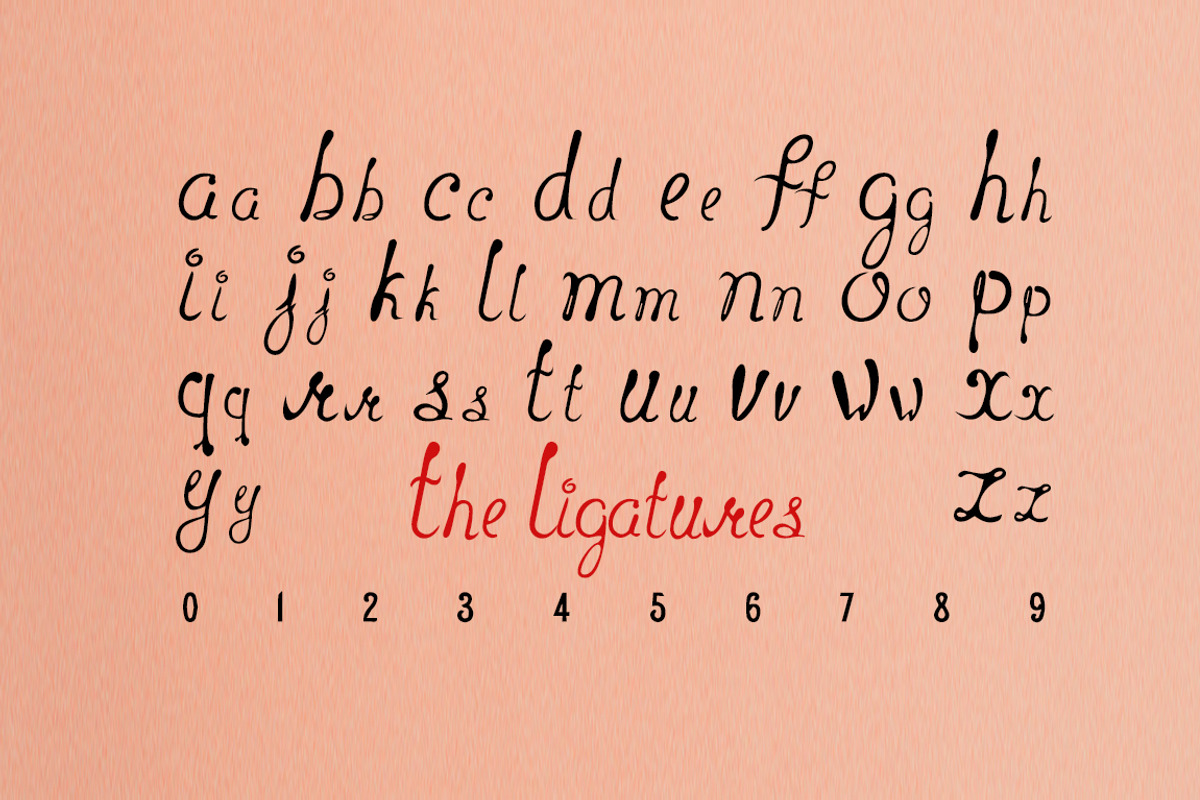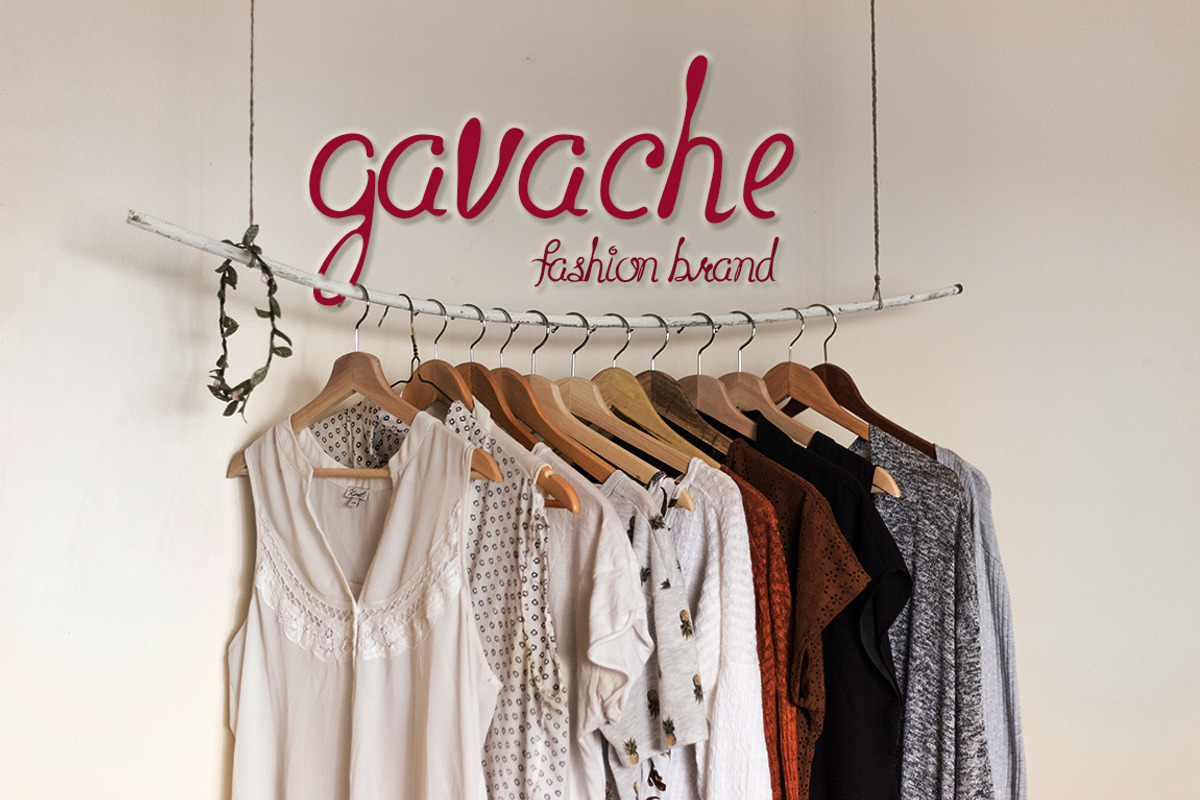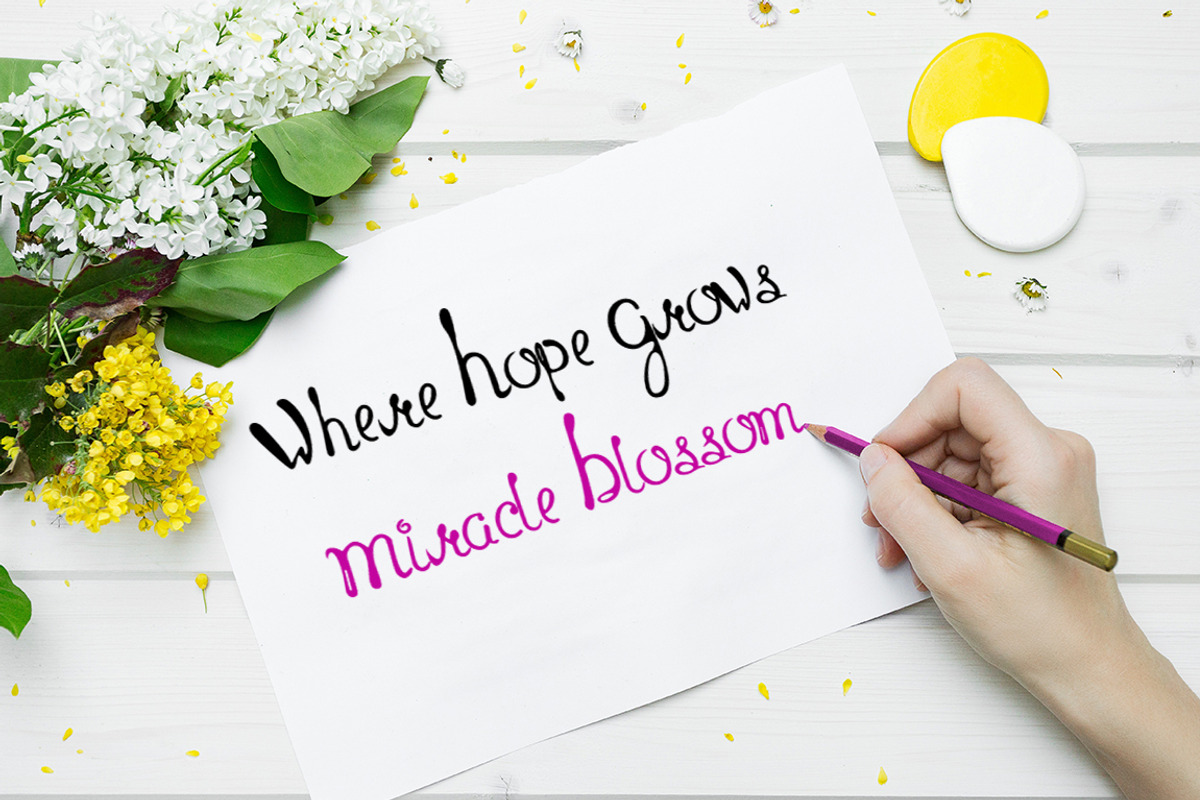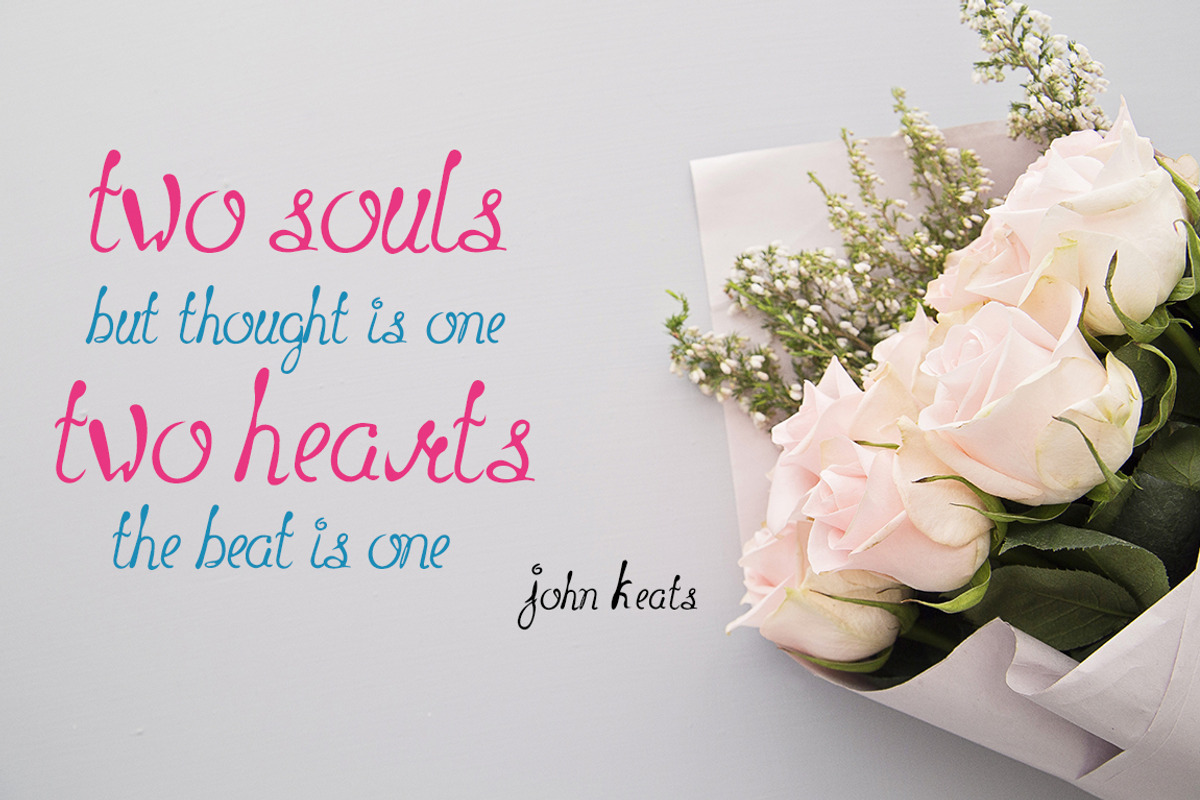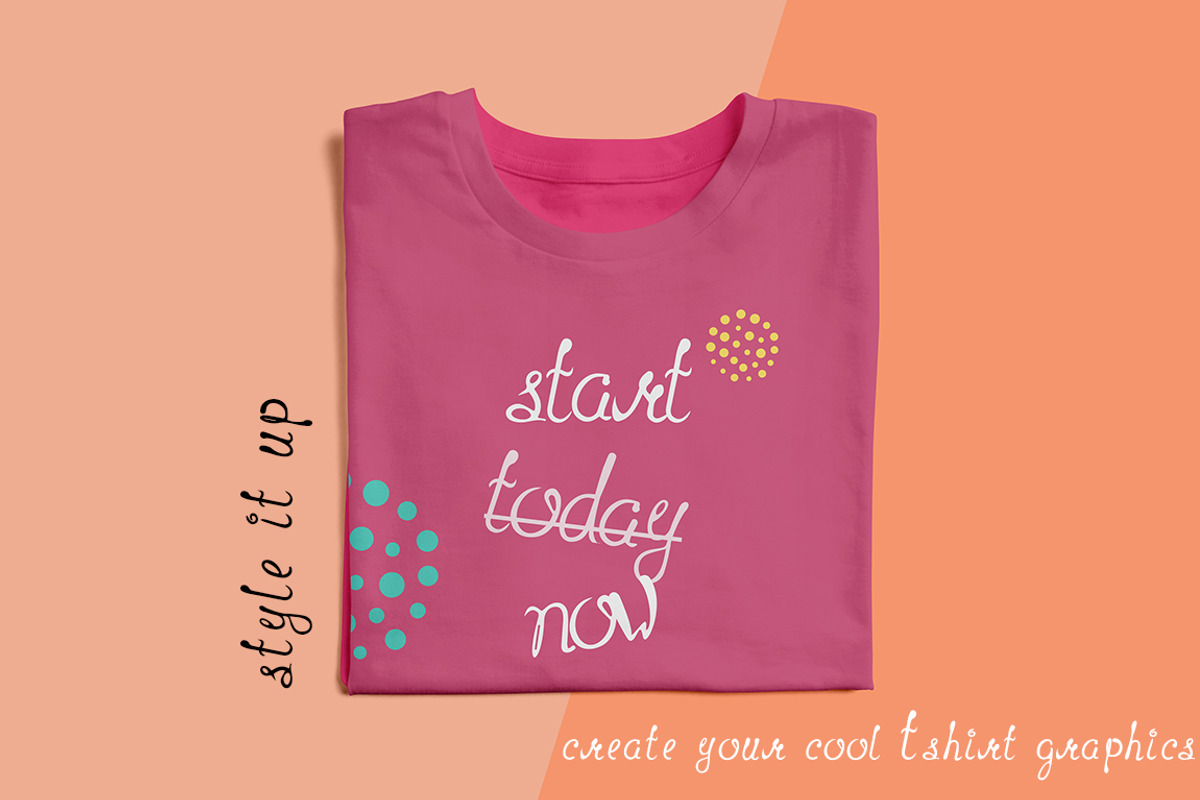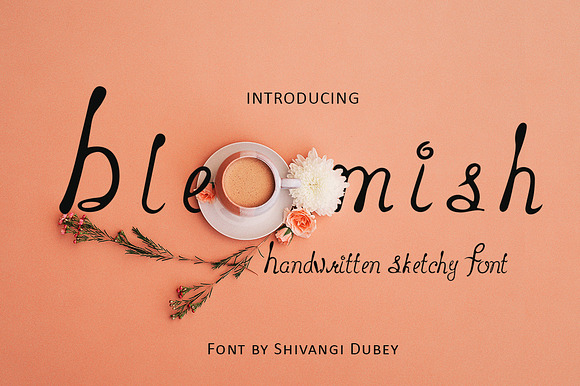
BLEMISH: Handwritten Sketchy Font
Introducing BLEMISH - Handwritten Sketch Font !
Perfect for DIY Projects - Invite - Labels - Logos - Botanical - Wall Art - Branding - Packaging - T - Shirt and much more. It consist of a feeling of Creative With Casuals - a script font to embelish your projects and design products.
26 Uppercase Ligatures
26 Lowercase Ligatures
BLEMISH: Handwritten Sketchy Font by Design Unique fits naturally into Branding, posters, packaging, typography.